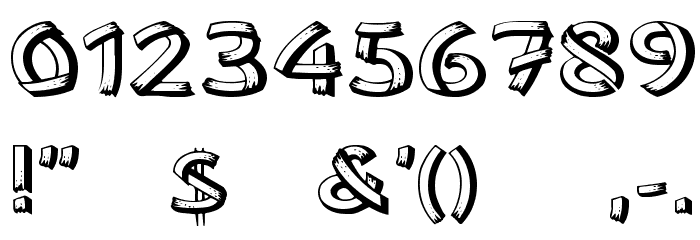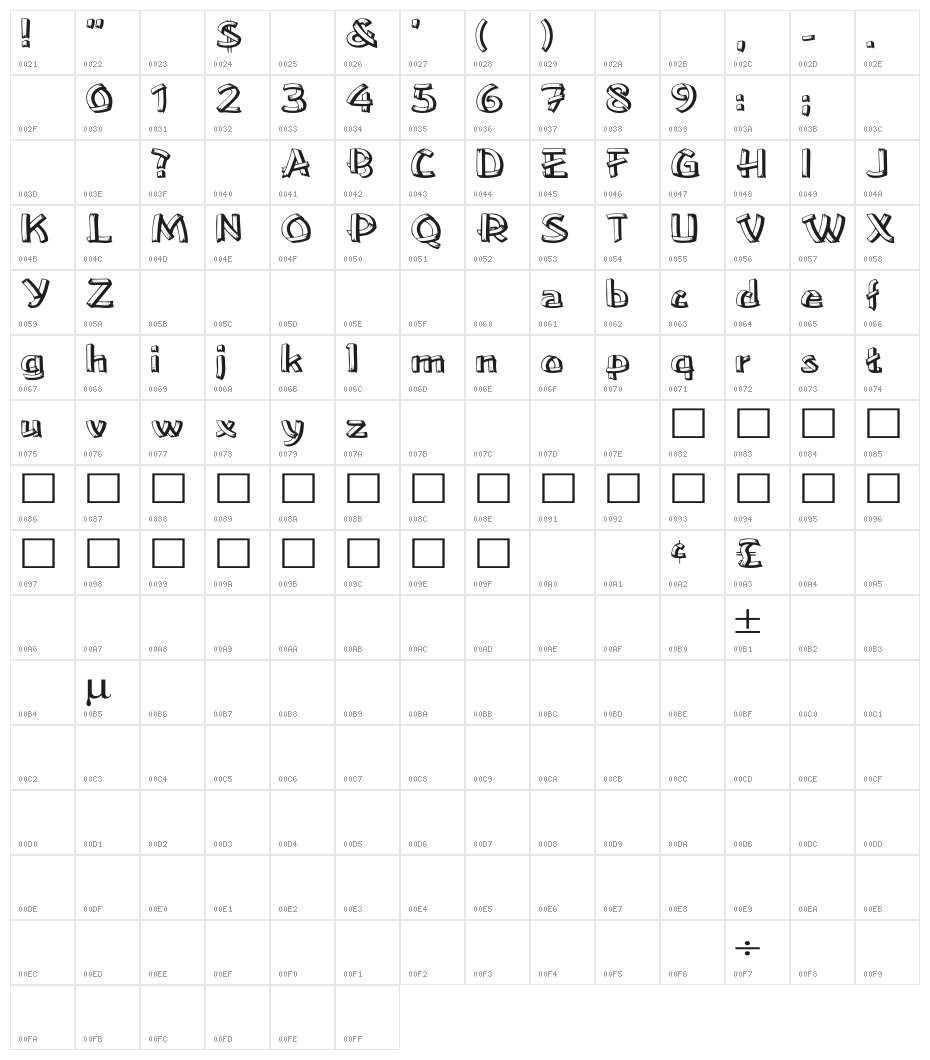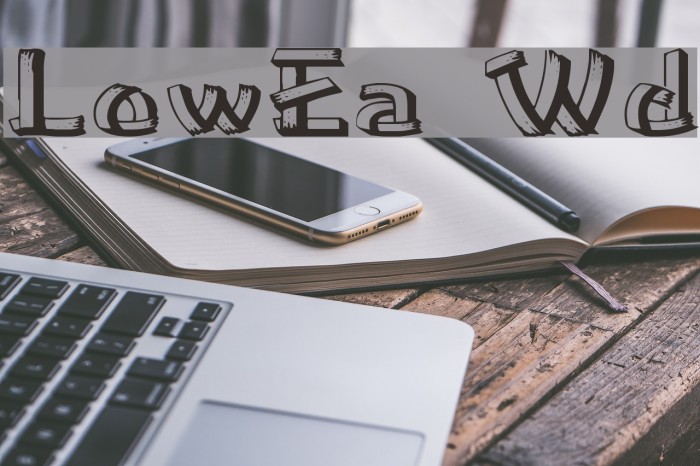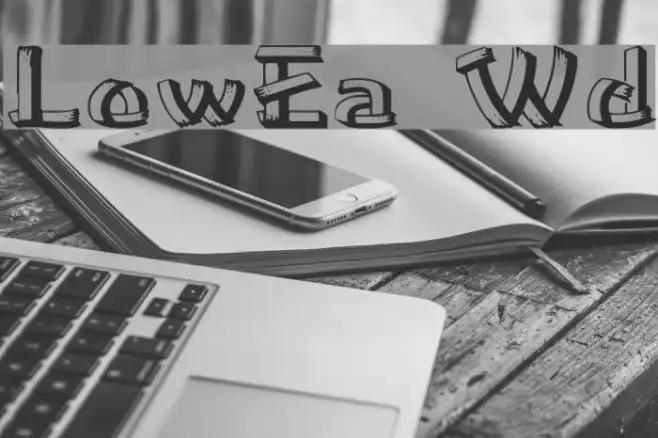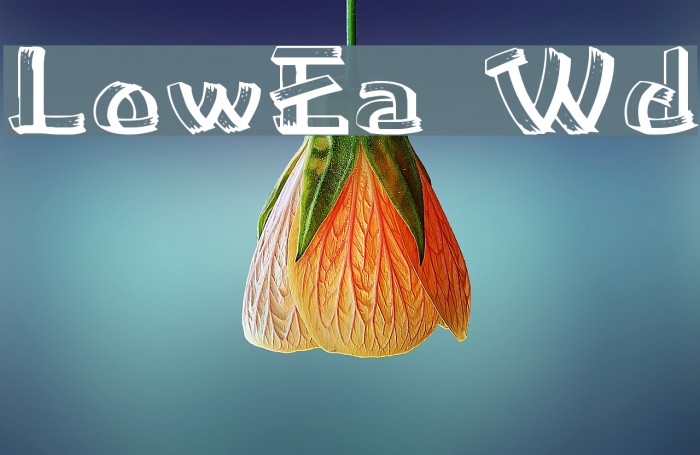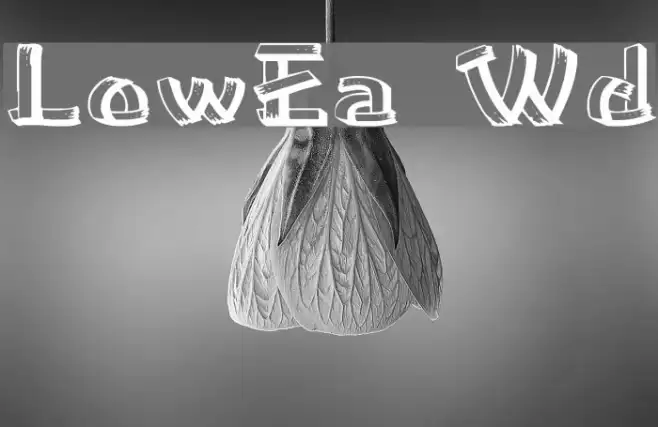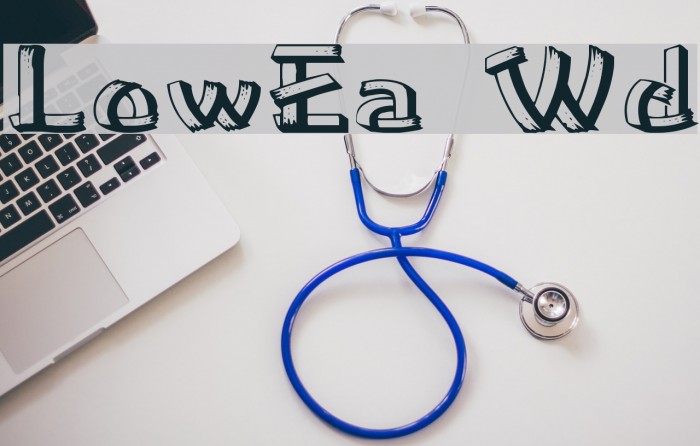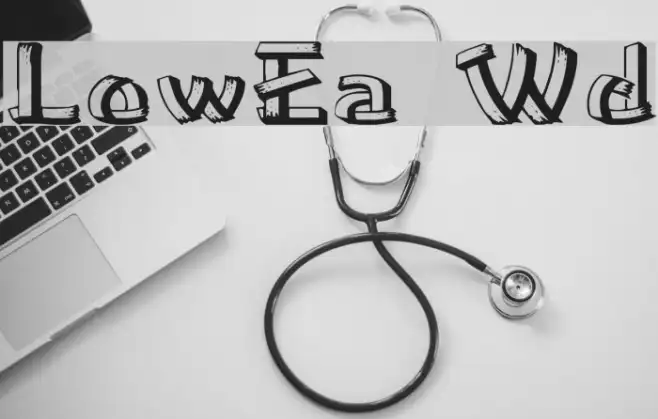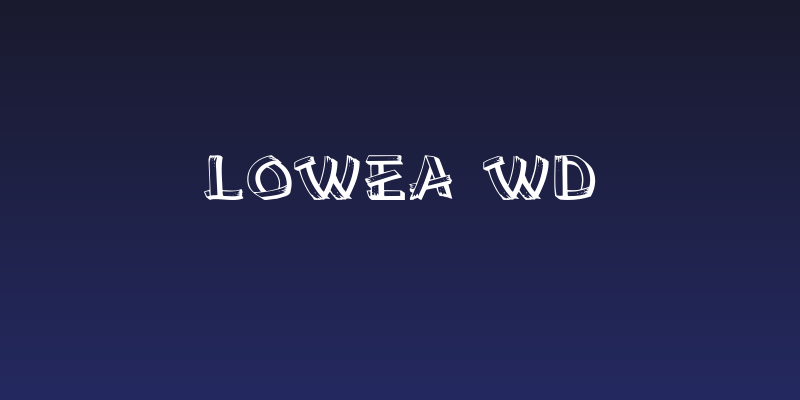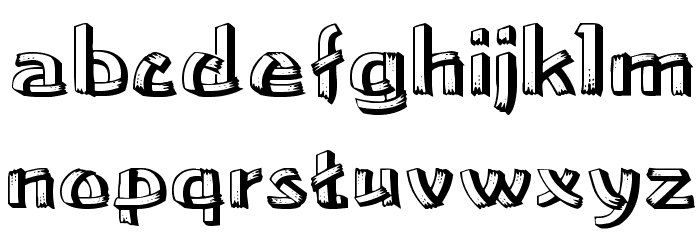
LowEa Wd Font
LowEa Wd Description
This font features a bold, artistic style with a hand-drawn appearance. The characters are outlined with a thick, uneven stroke, giving them a dynamic and textured look. The letters have a playful and slightly chaotic feel, with irregular edges and varying line thicknesses that suggest a sense of movement and energy. The font includes both uppercase and lowercase letters, numbers, and a selection of special characters. Its unique style makes it stand out, ideal for projects that require a creative and informal touch.
| Proposed Projects | Ideal for posters, comic book designs, children's book covers, and creative branding projects. |